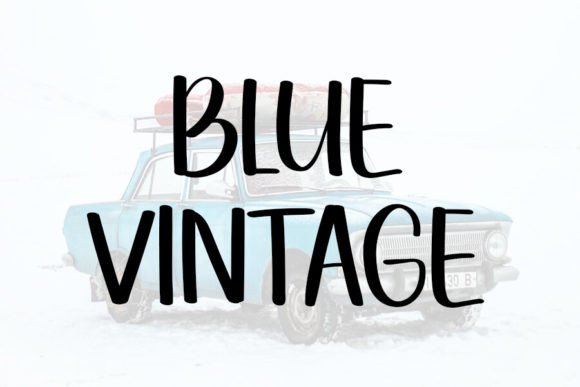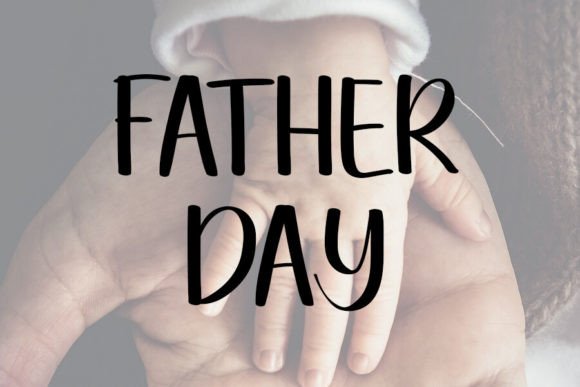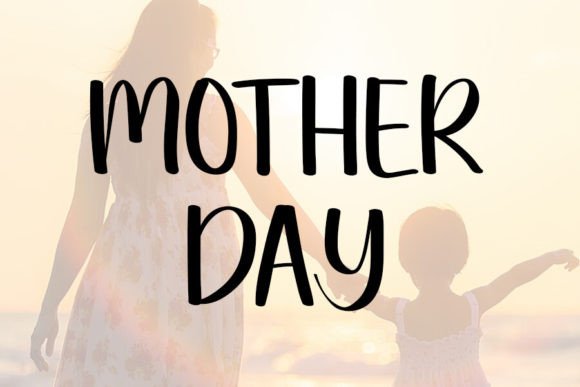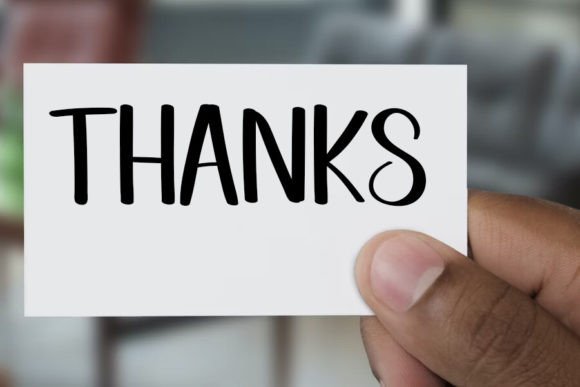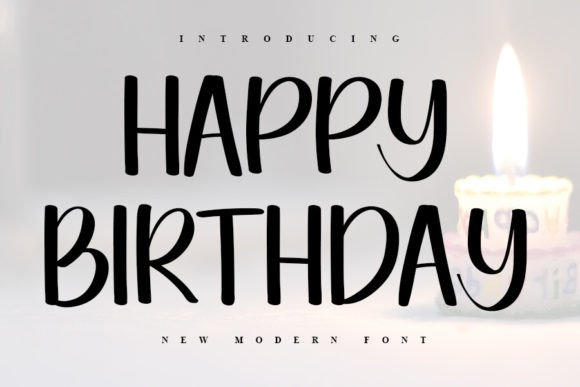
Introducing Happy Birthday Font: The Perfect Blend of Elegance and Whimsy
Are you looking for a font that can add a touch of warmth and personality to your designs? Look no further than the Happy Birthday font, a charming handwritten typeface that combines elegance with a personal touch. With its smooth, flowing strokes and whimsical character, this delightful font is ideal for creating heartfelt invitations, cozy branding, and creative projects that stand out from the crowd.
The Characteristics of Happy Birthday Font
Happy Birthday font is a carefully crafted handwritten typeface that boasts a range of characteristics that make it perfect for designers and crafters. Some of its key features include:
• Smooth, flowing strokes: The font features smooth, flowing strokes that give it a natural, handwritten feel.
• Whimsical character: The font has a playful, whimsical character that adds a touch of personality to any design.
• Elegant and refined: Despite its playful nature, the font is also elegant and refined, making it perfect for more formal designs.
• Versatile: The font is versatile and can be used for a wide range of projects, from invitations and branding to creative projects and more.
Uses for Happy Birthday Font
Happy Birthday font is a versatile typeface that can be used for a wide range of projects. Some of the most popular uses for this font include:
• Invitations: The font is perfect for creating heartfelt invitations for special occasions, such as birthdays, weddings, and baby showers.
• Branding: The font’s elegant and refined nature makes it perfect for creating cozy branding for businesses and products.
• Creative projects: The font’s playful and whimsical character makes it perfect for creative projects, such as art journals, scrapbooking, and more.
• Signage: The font’s smooth, flowing strokes make it perfect for creating eye-catching signage for businesses, events, and more.
Tips for Using Happy Birthday Font
To get the most out of Happy Birthday font, here are a few tips to keep in mind:
• Use it with contrasting colors: The font’s smooth, flowing strokes can get lost in busy backgrounds, so be sure to use it with contrasting colors to make it stand out.
• Experiment with different sizes: The font looks great in a range of sizes, from small and delicate to large and bold.
• Pair it with other fonts: Happy Birthday font pairs well with other fonts, such as serif and sans-serif fonts, to create visually interesting combinations.
• Use it to add a personal touch: The font’s handwritten nature makes it perfect for adding a personal touch to your designs.
In conclusion, Happy Birthday font is a charming handwritten typeface that combines elegance with a personal touch. With its smooth, flowing strokes and whimsical character, this delightful font is ideal for creating heartfelt invitations, cozy branding, and creative projects that stand out from the crowd. Whether you’re a designer or crafter, Happy Birthday font is a versatile typeface that is sure to bring warmth and personality to your designs.
Happy Birthday Font: The Perfect Addition to Your Design Toolbox